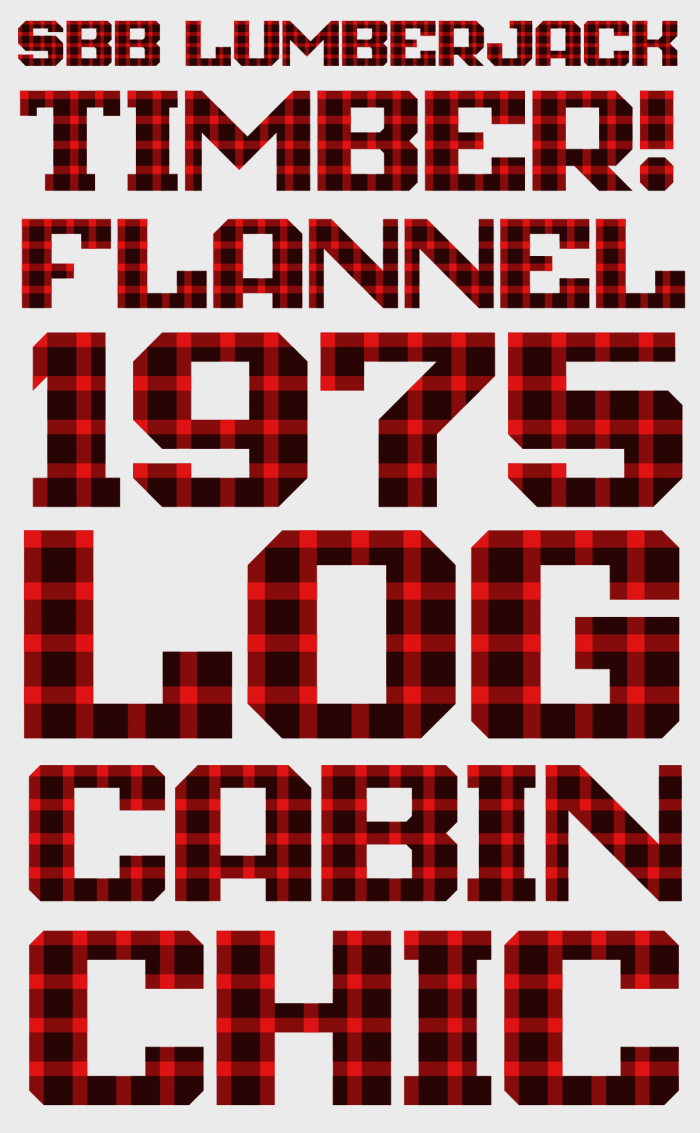
• This plaid pattern feels like a flannel shirt that a lumberjack would wear. I think I've purchased wrapping paper with this pattern. And I know my wife has some pajamas in this plaid. It took a few tries to get the pattern scale right, and figure out how to get the pattern to best repeat across the letters. In the end, I've got a font that looks like a throw pillow from a "rustic" Airbnb.
Best used large.